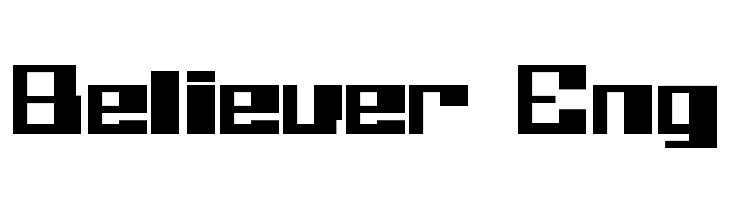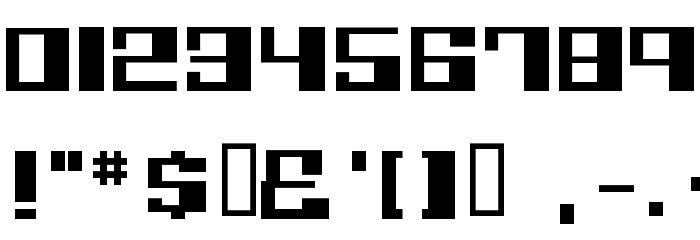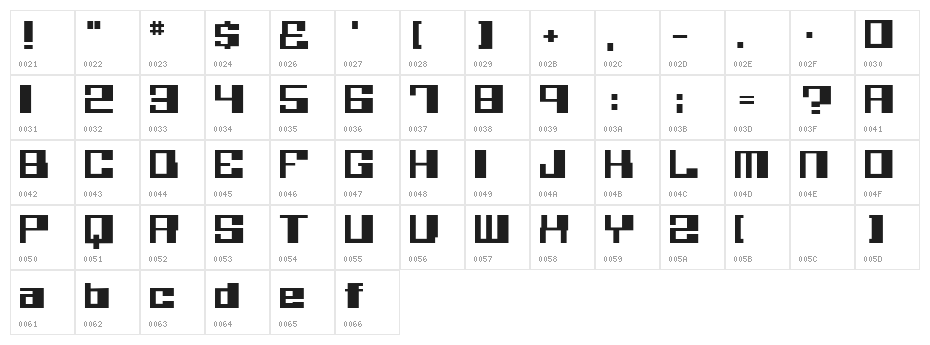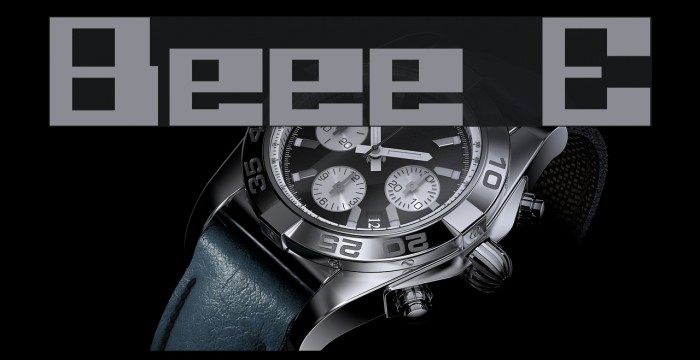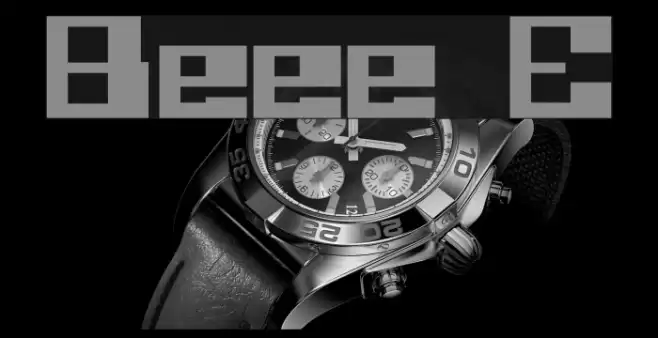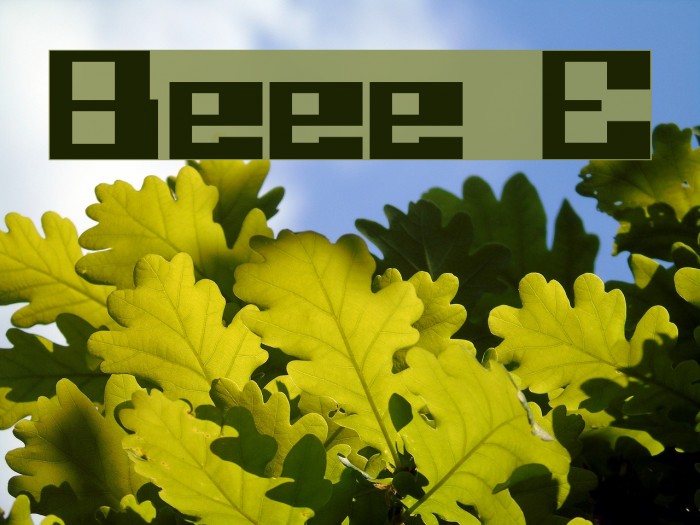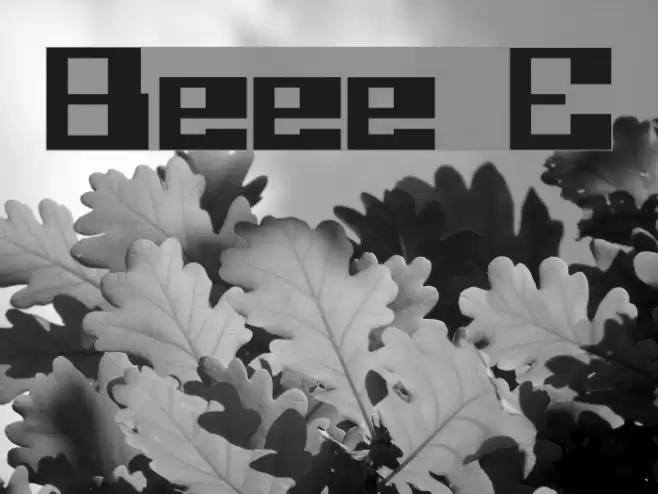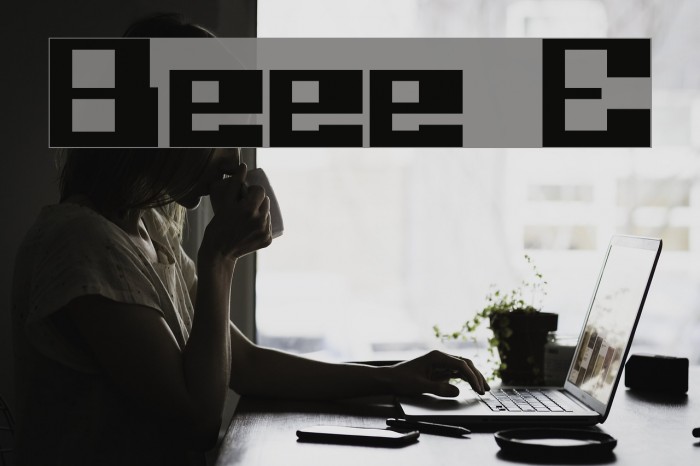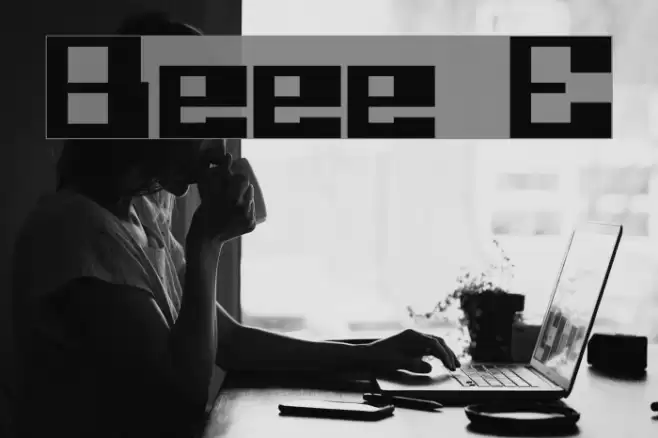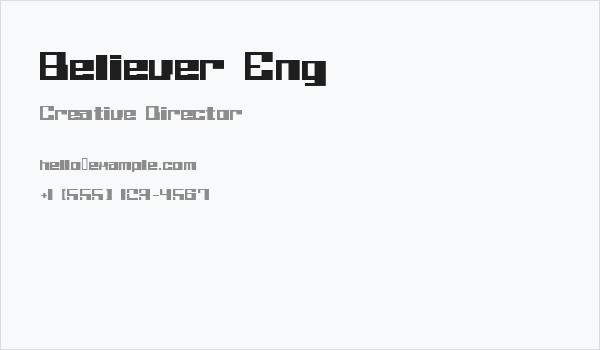
Believer Eng Font
Believer Eng Description
This font features a bold, geometric design with a distinctly modern and digital aesthetic. The characters are constructed with sharp, angular lines and uniform stroke widths, giving it a blocky and robust appearance. The uppercase and lowercase letters maintain a consistent height, contributing to a cohesive look. The numerals and special characters follow the same design principles, ensuring uniformity across all glyphs. This font's style is reminiscent of early digital displays or retro video game graphics, making it stand out with its unique and eye-catching design.
| Use Case | Headlines, Logos, Digital displays |
| Proposed Projects | Ideal for retro-themed designs, video game graphics, digital art projects, and tech-related branding. |